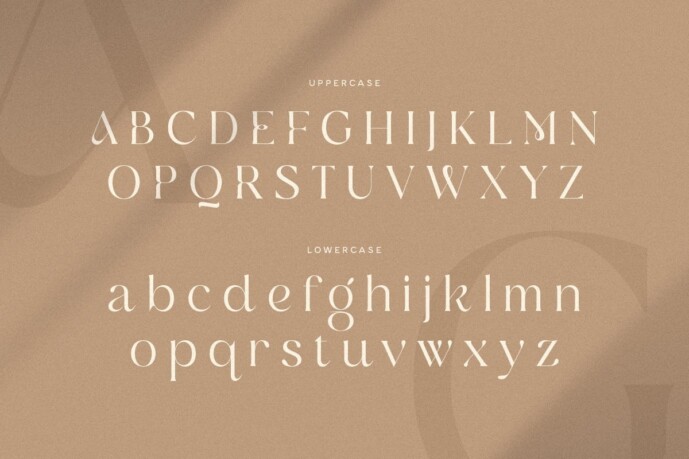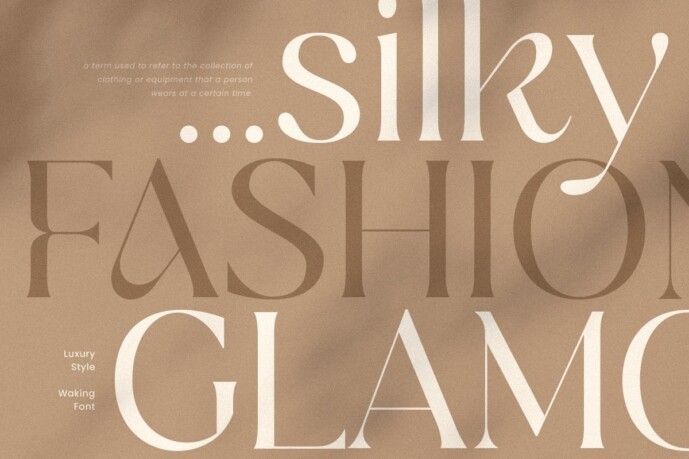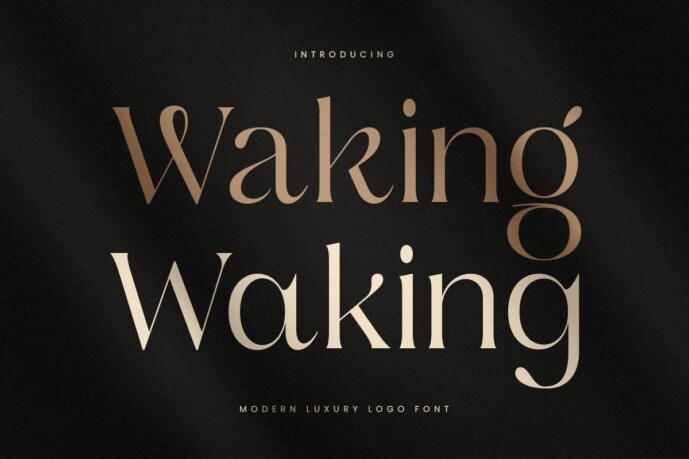
Waking Font
Waking Font, the epitome of luxury and elegance when it comes to logo design. Waking is a serif font designed to bring sophistication and class to your branding projects.